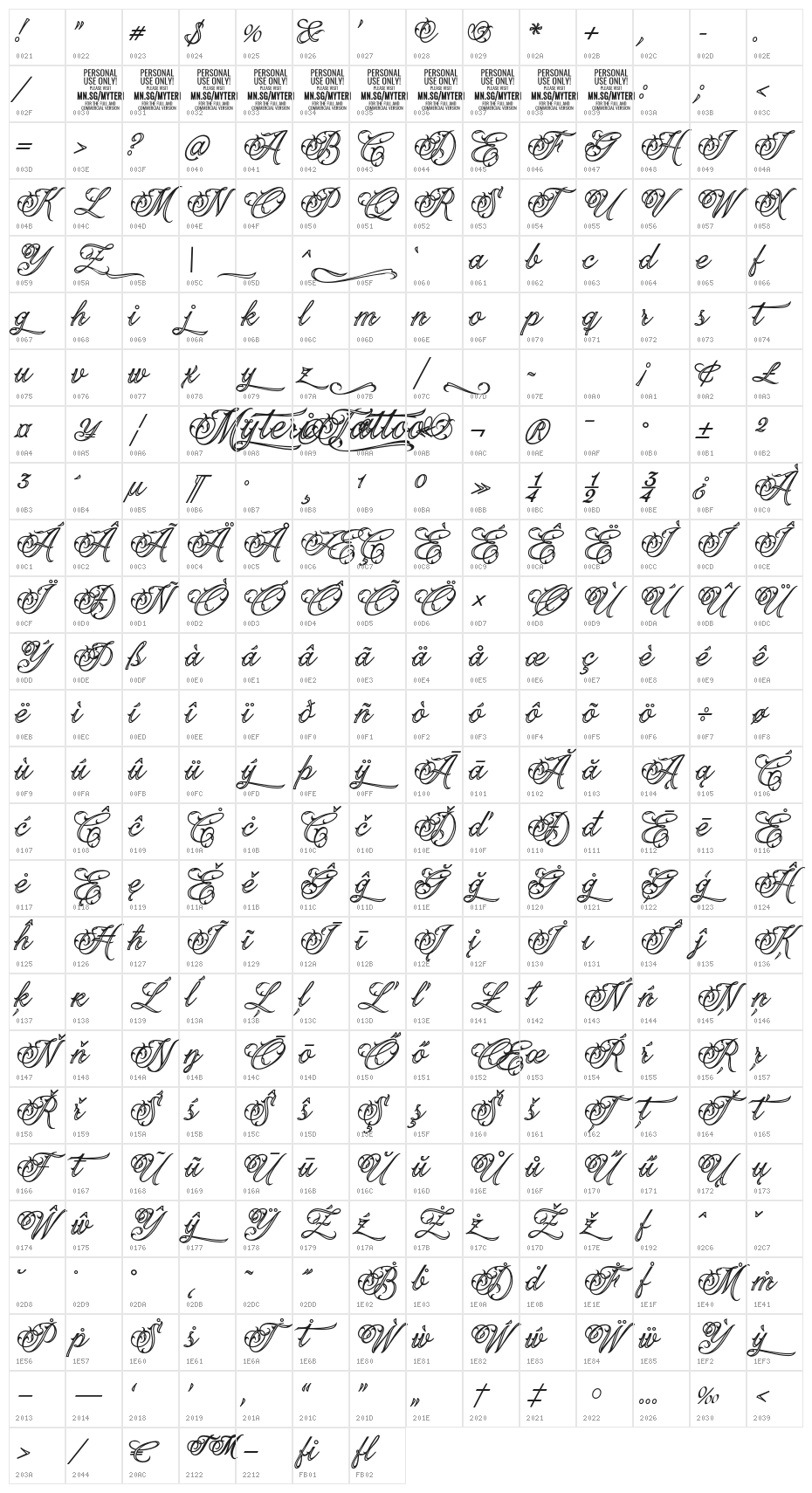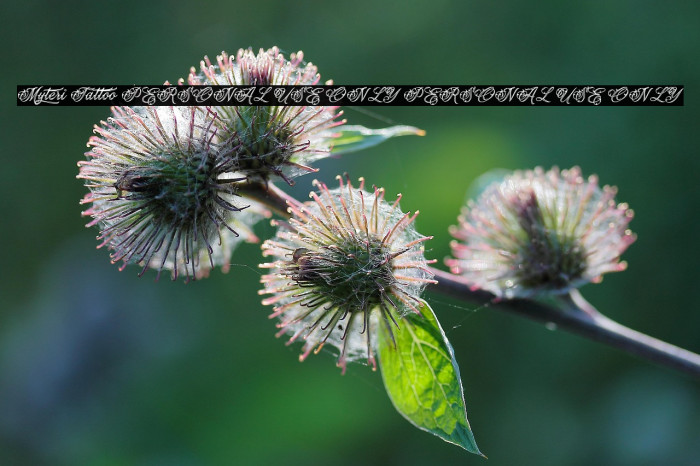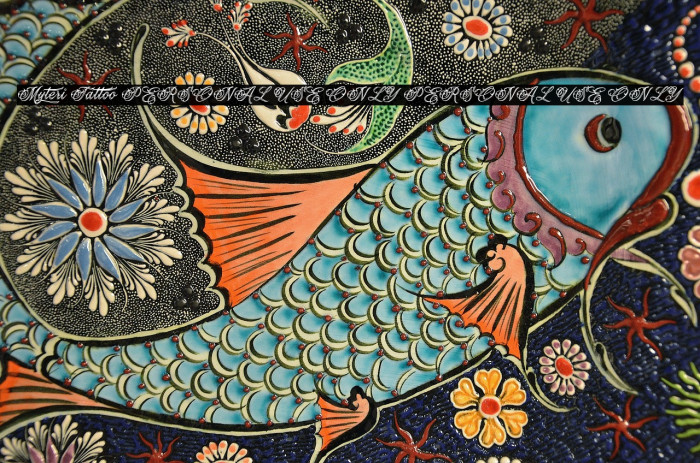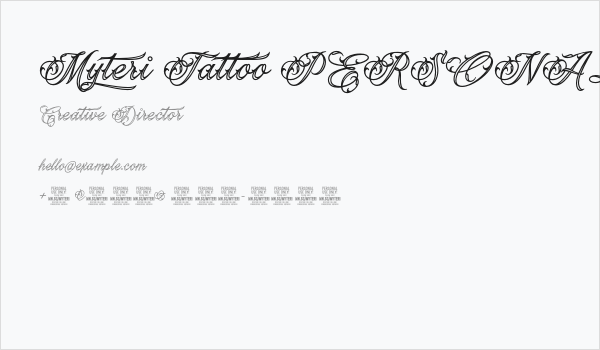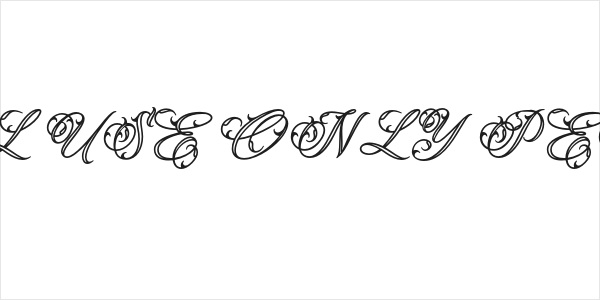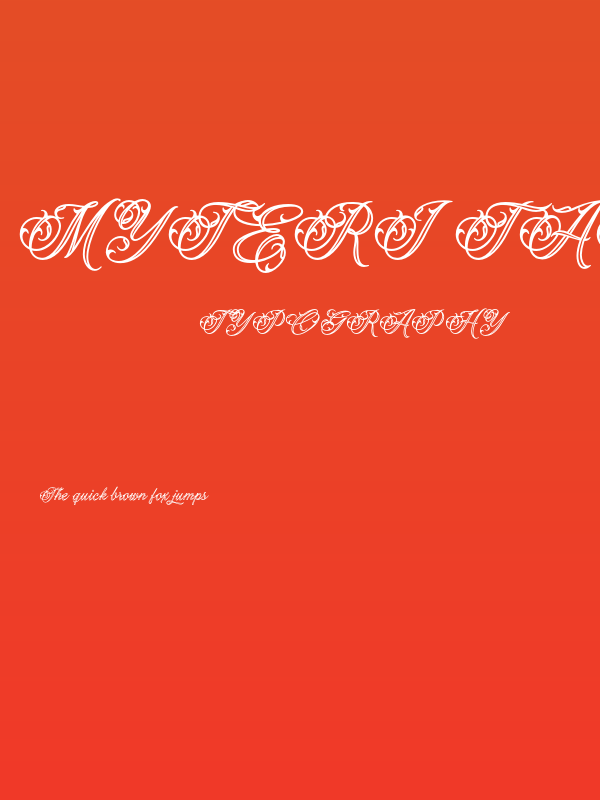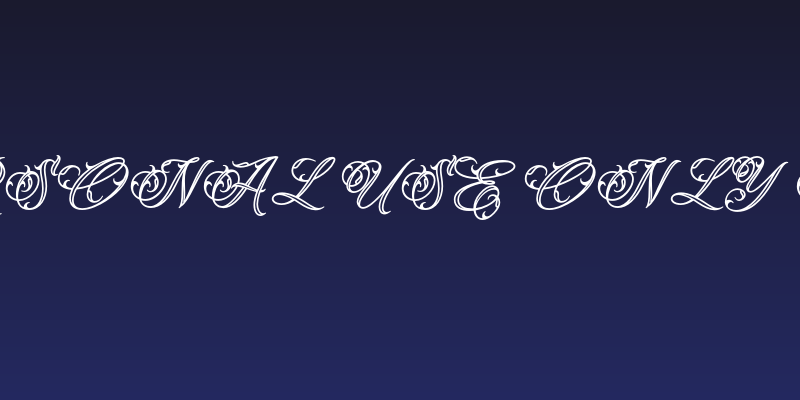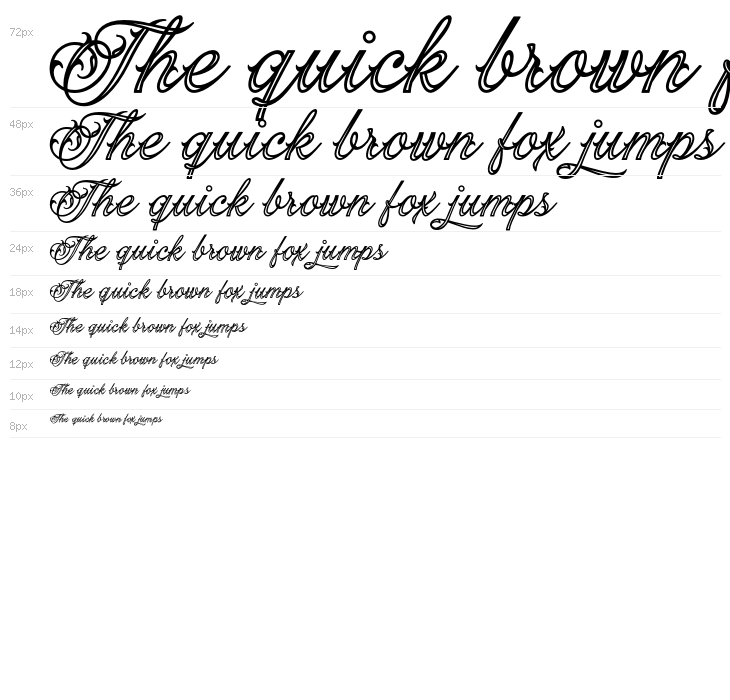
Myteri Tattoo PERSONAL USE ONLY Font
Myteri Tattoo PERSONAL USE ONLY Description
This font features an intricate and decorative script style, characterized by its flowing, interconnected letters and elaborate swashes. The uppercase letters are particularly ornate, with loops and flourishes that give a sense of elegance and sophistication. The lowercase letters maintain a consistent style, with smooth curves and a slight slant that enhances readability while maintaining the decorative theme. The numbers and special characters are designed to match the overall aesthetic, incorporating similar flourishes and curves. This font is ideal for projects that require a touch of elegance and artistic flair.
| Proposed Projects | Ideal for tattoo designs, wedding invitations, luxury branding, and artistic posters. |